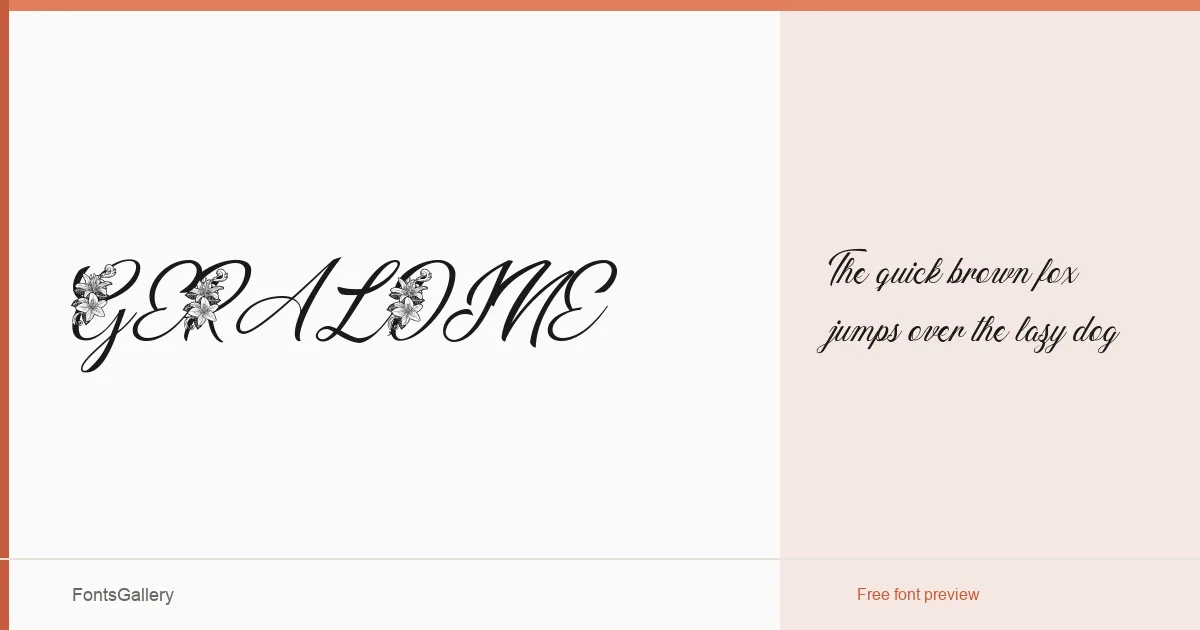
About GERALDINE Font
GERALDINE is a script typeface designed by Billy Argel, crafted to evoke a sense of timeless elegance and romantic sophistication. Released under the Billy Argel foundry, this font brings a distinctive vintage charm to any design it graces. Its flowing letterforms make it an instantly recognizable choice for projects that demand a touch of luxury and refinement.
GERALDINE features the graceful, flowing strokes characteristic of elegant script typography, drawing on a romantic and vintage aesthetic that feels both classic and luxurious. Its letterforms exhibit carefully crafted curves and connecting characters that lend a sense of handcrafted artistry and opulence. The overall mood strikes a balance between old-world charm and refined modern sensibility.
GERALDINE is ideally suited for logos, wedding stationery, invitation cards, greeting cards, and certificates where an elevated, romantic tone is desired. Its elegant script style makes it particularly compelling for branding and event materials that call for a luxurious, vintage feel. For a balanced typographic pairing, GERALDINE complements beautifully with Aresink for a harmonious script-driven layout, or with Helvetica for a striking contrast between ornate and clean sans-serif styles.